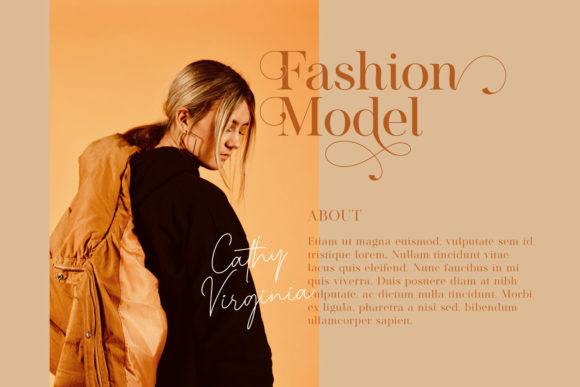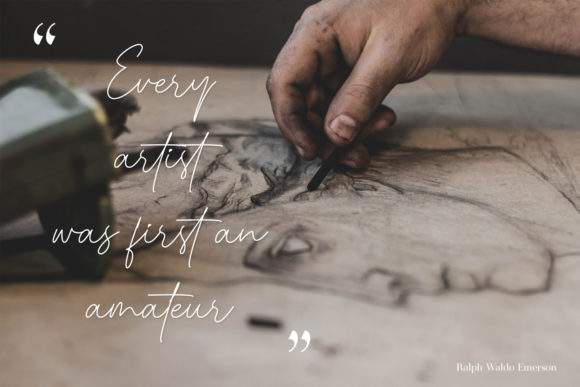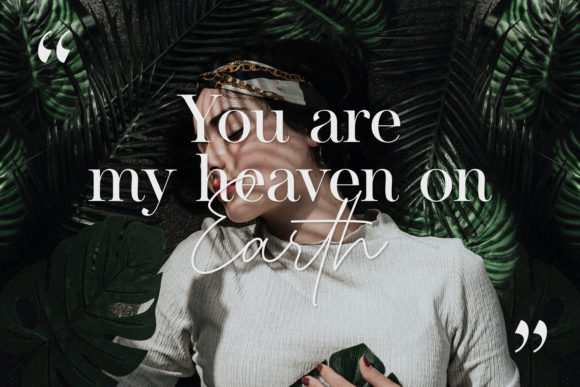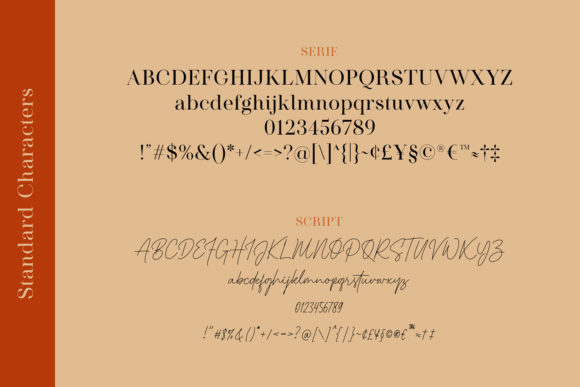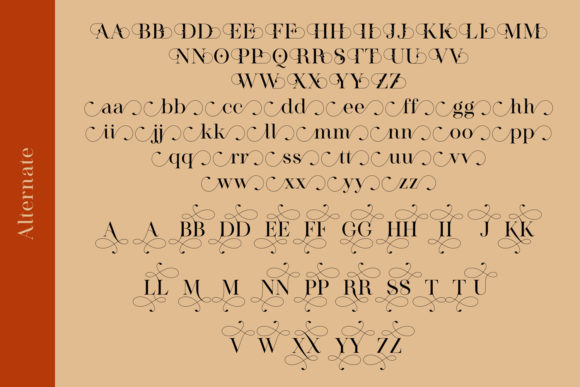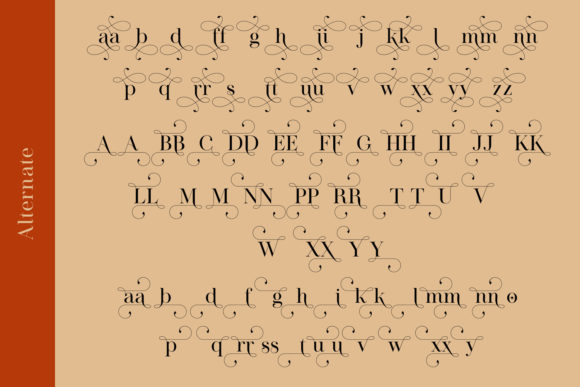
Introduction to Luthon Southard Font
As a designer, have you ever stared at a blank page, waiting for the perfect font to spark your creativity? It’s a feeling we’ve all been there – the blank canvas, the endless options, and the pressure to create something truly unique. But what if I told you there’s a font that can elevate your designs to new heights, making that creative process a whole lot easier?
Meet the Luthon Southard Font, a stunning duo of script and serif that’s about to become your go-to design resource. With its high-quality aesthetic and versatility, this font is the perfect addition to any creative project. Whether you’re working on a logo, a brochure, or a website, Luthon Southard Font is sure to bring a touch of elegance and sophistication to your design.
But what really sets Luthon Southard Font apart is its ease of use. With PUA encoding, you can access all the glyphs and swashes with just a few clicks, making it a breeze to customize and perfect your design. And the best part? It’s available for free download, so you can start using it right away on your next project.
Key Features of Luthon Southard Font
- Features a unique, elegant design that adds sophistication to any project
Honest Review: Luthon Southard Font
I recently had the chance to work with the Luthon Southard Font, and I must say it’s a fantastic design resource. This high-quality font has a lot to offer for any creative project.
- ✨ Unique and elegant design: The Luthon Southard Font features a beautiful, hand-drawn style that adds a touch of sophistication to any text.
- ✨ Highly customizable: With its extensive character set and multiple font weights, this font is perfect for designers who need to create visually appealing text for various purposes.
- ⚠️ Limited transparency options: While the font has a transparent background, it’s not as flexible as some other fonts when it comes to opacity adjustments.
- ⚠️ Not ideal for small text: Due to its unique design, the Luthon Southard Font may not be the best choice for small text or intricate details.
Overall, I’m impressed with the Luthon Southard Font. Its high-quality design and free download make it an excellent addition to any designer’s toolkit. While it may have some limitations, it’s still a valuable resource for any creative project.
Tips for Getting the Most Out of Luthon Southard Font
To get the most out of the Luthon Southard Font, experiment with different font sizes, colors, and combinations. This font is versatile and can be used in a variety of design projects, from logos to brochures.
Common Use Cases for Luthon Southard Font
The Luthon Southard Font is commonly used in creative projects such as logos, business cards, and brochures. Its unique design and high-quality make it an excellent choice for designers looking to add a touch of sophistication to their work.
What is the transparency of the Luthon Southard Font?
The Luthon Southard Font has a transparent background, making it perfect for use on dark or busy backgrounds. The font’s transparent background allows the text to stand out and be easily readable, even in complex design compositions.